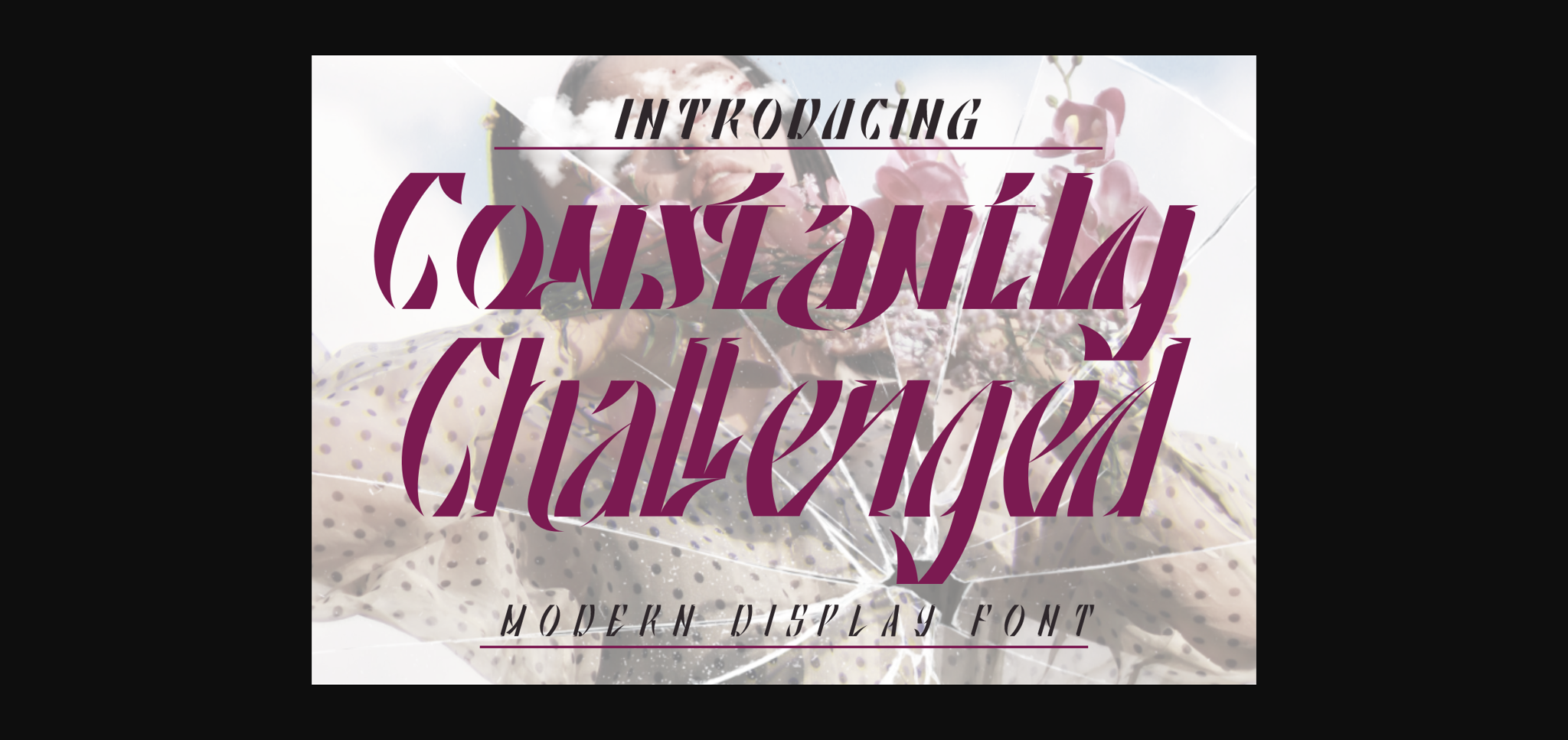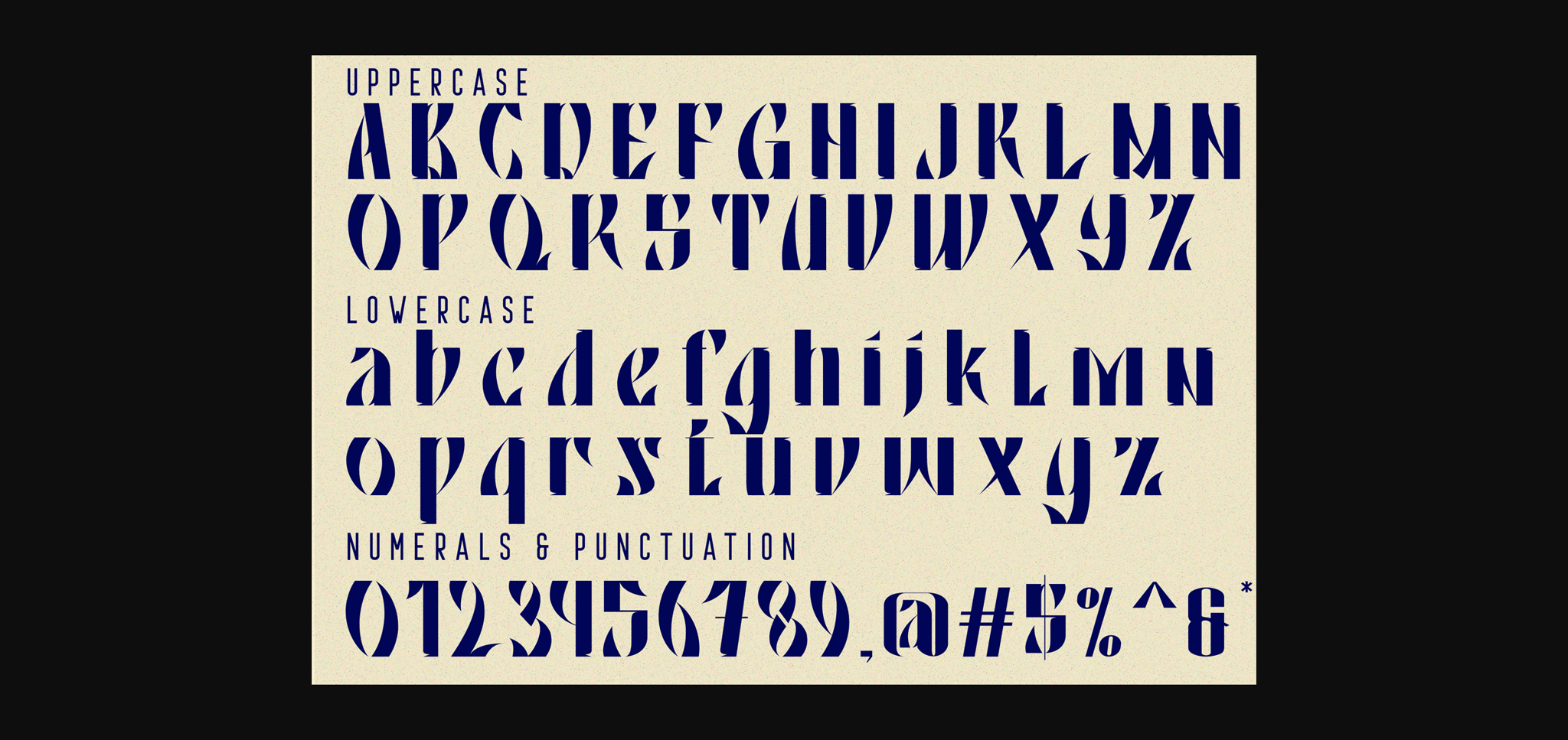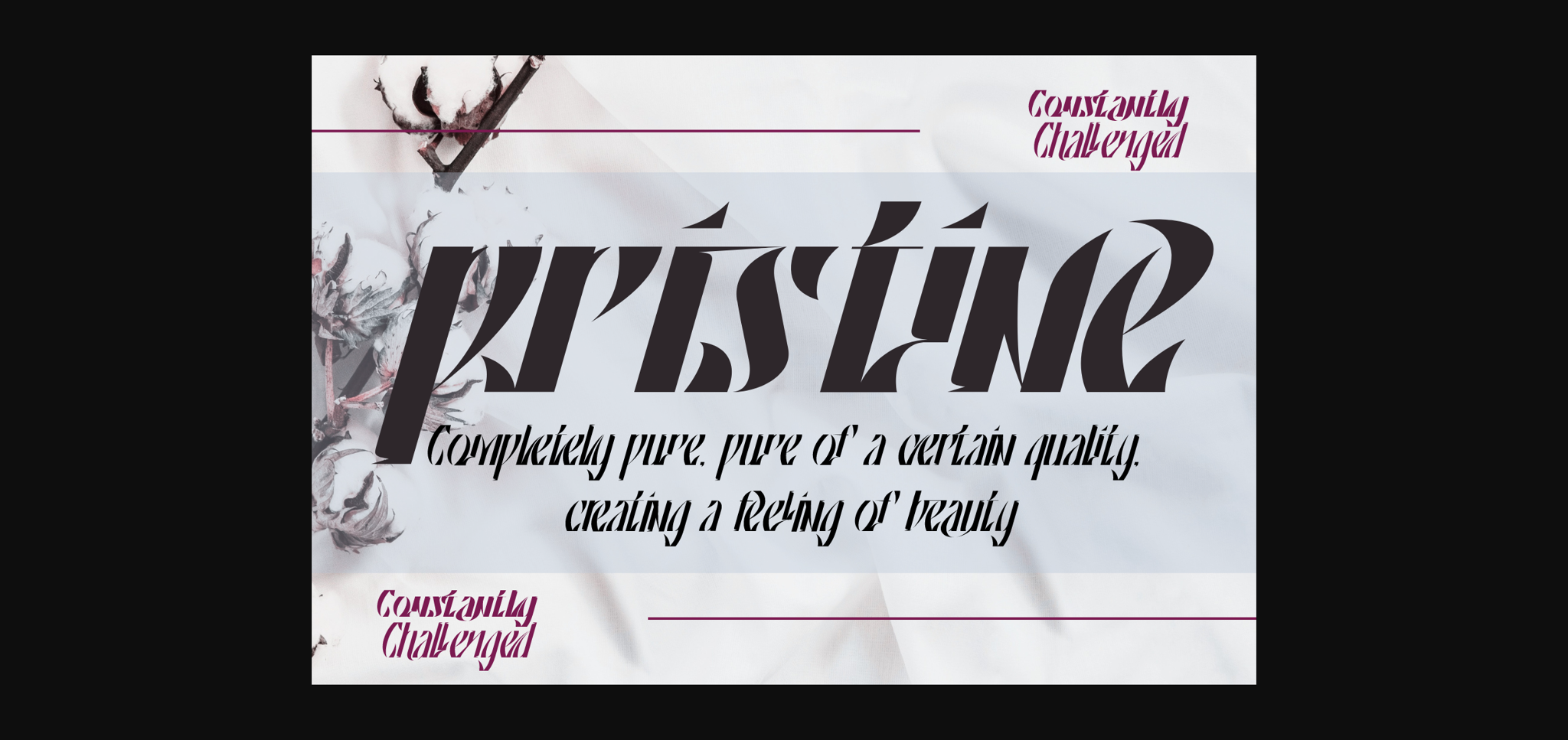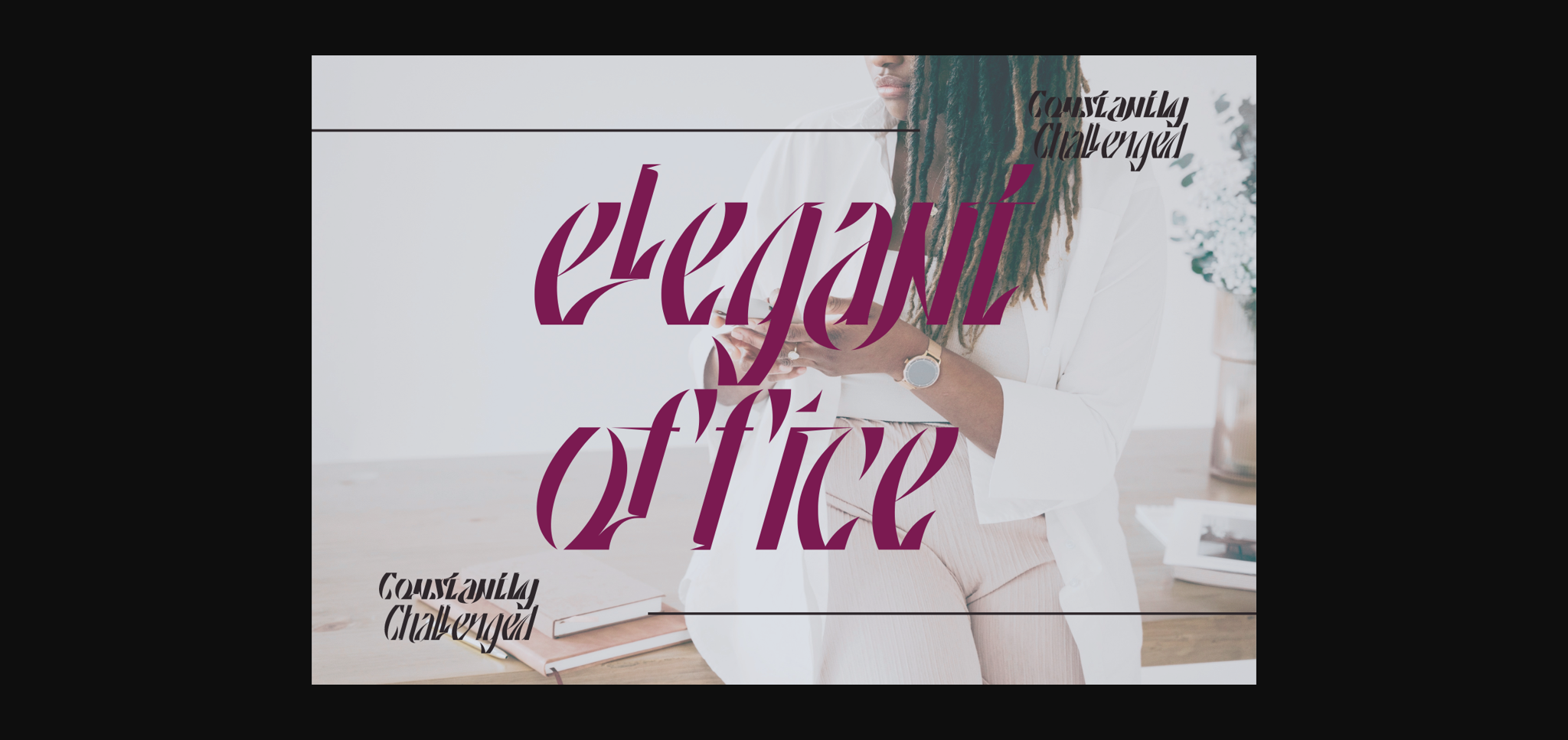
About Constantly Challenged Font
Constantly Challenged Font is X-Games Sport Font, and modern futuristic hi-tech atmosphere and style. It’s a celebration of beauty, offering a timeless aesthetic that appeals to high-end fashion brands, luxury publications, and upscale branding projects. Use it in your projects in such areas as robots&androids, cyberpunk, hi-tech, future, virtual reality, space, army, games and many others.
Constantly Challenged was built with OpenType features and includes 100 ligatures, alternate, numbers, punctuation, and it also supports other languages.